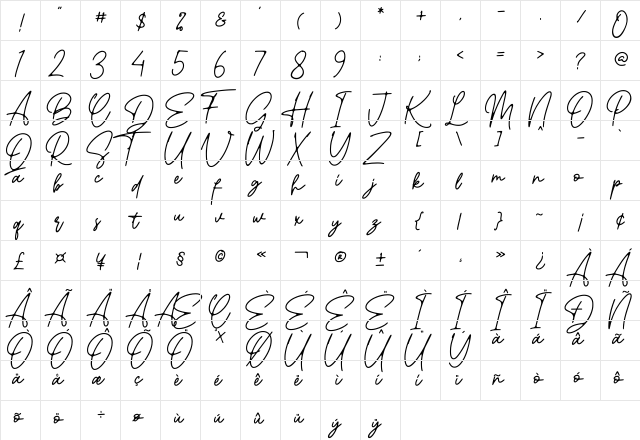
Gatheline Signature Regular
Design Context for Gatheline Signature Typeface
Gatheline Signature is a composed and adaptable typeface that performs quietly and consistently across a wide range of design contexts.
Pro Tip: Use Gatheline Signature in both headline and body roles to test its range before committing to a single application.